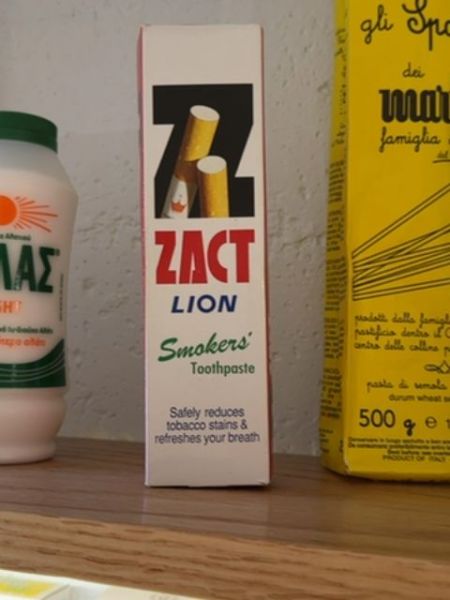
Zact Lion Smokers' Toothpaste
A toothpaste specifically designed to reduce tobacco stains and refresh breath.
The word 'ZACT' is prominently displayed in a thick, bold sans-serif font in red, which communicates strength and effectiveness. Below it, 'LION' uses a more traditional serif font in blue that adds a sense of trust and reliability. The cursive green script for 'Smokers' further contrasts with its informal and personal touch, aligning with the product's target audience.
The packaging features a bold red and black color scheme with a clear depiction of cigarettes, symbolizing its purpose for smokers. The slim rectangular box is simple yet visually captures attention with its contrasting colors and clean layout.
- Designed to reduce tobacco stains on teeth.
- Helps refresh smokers' breath.
- Produced by Lion Corporation, known for personal care products.